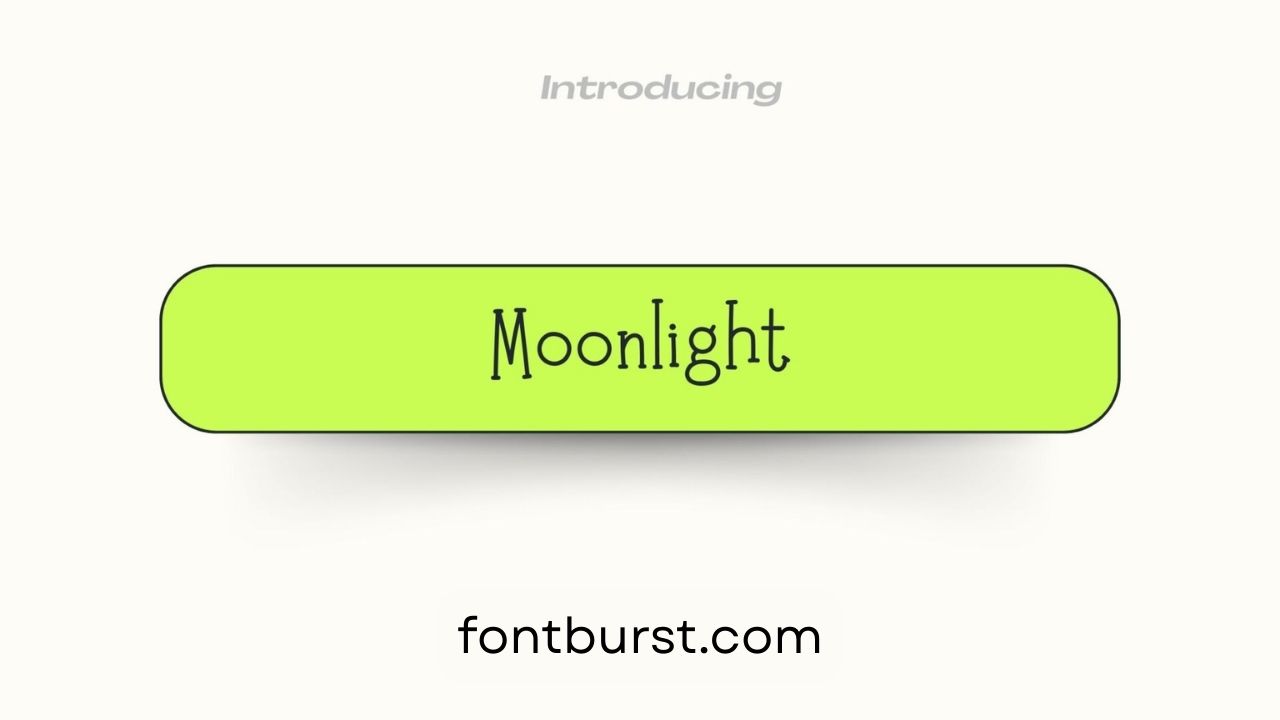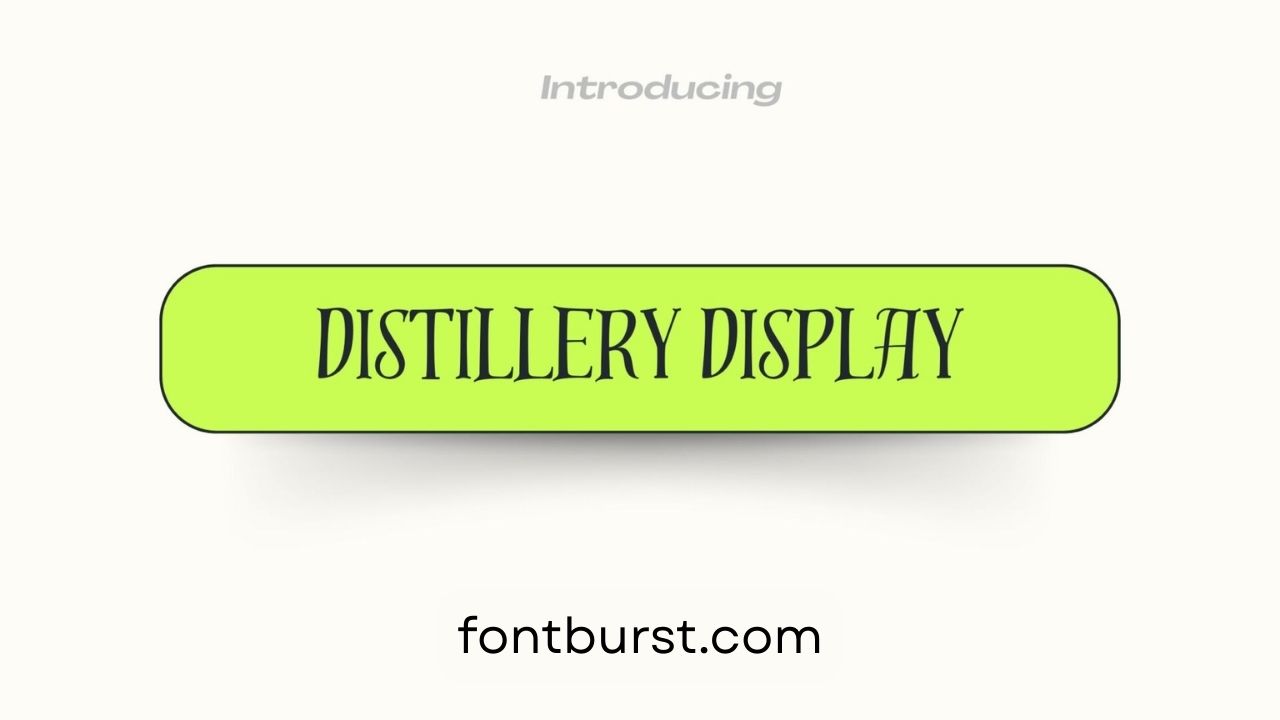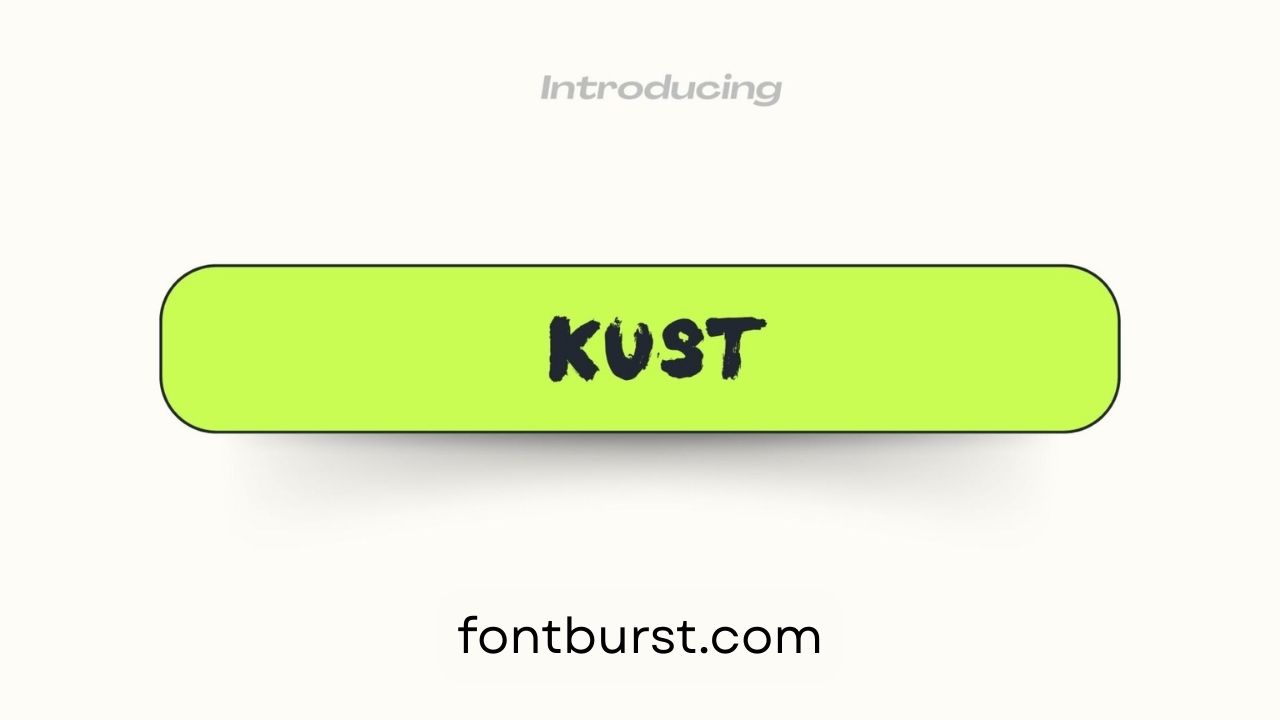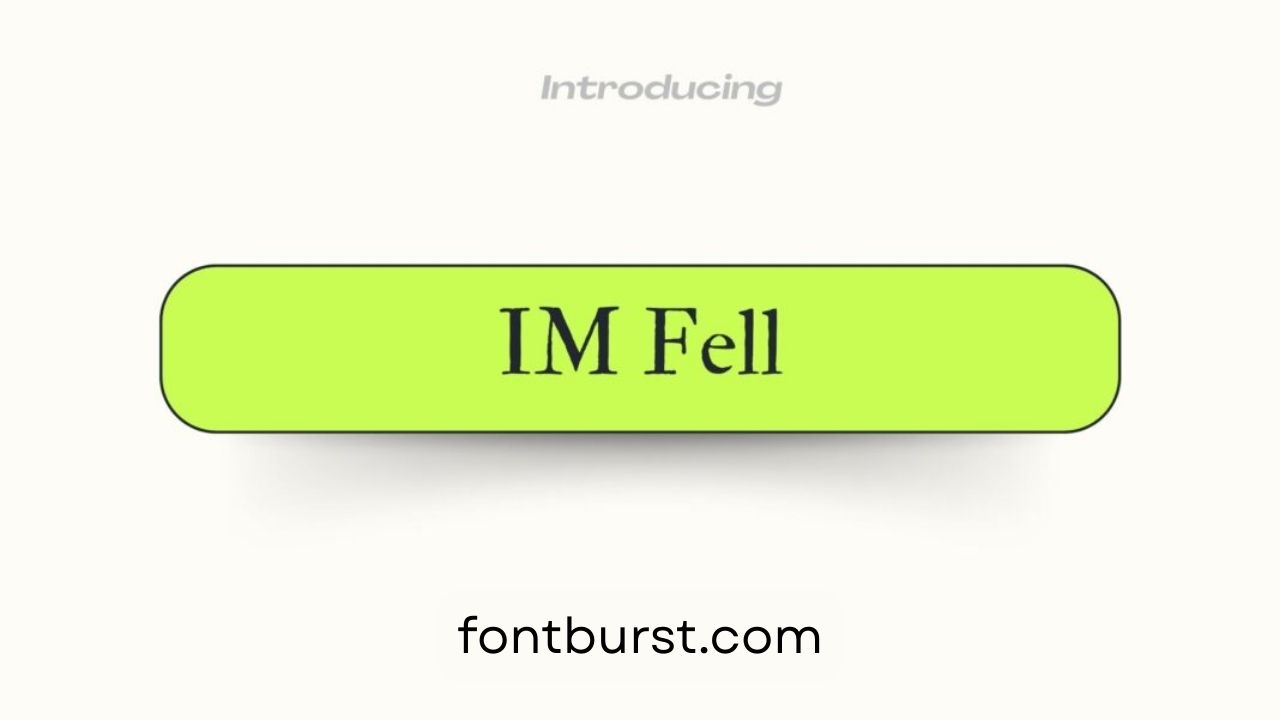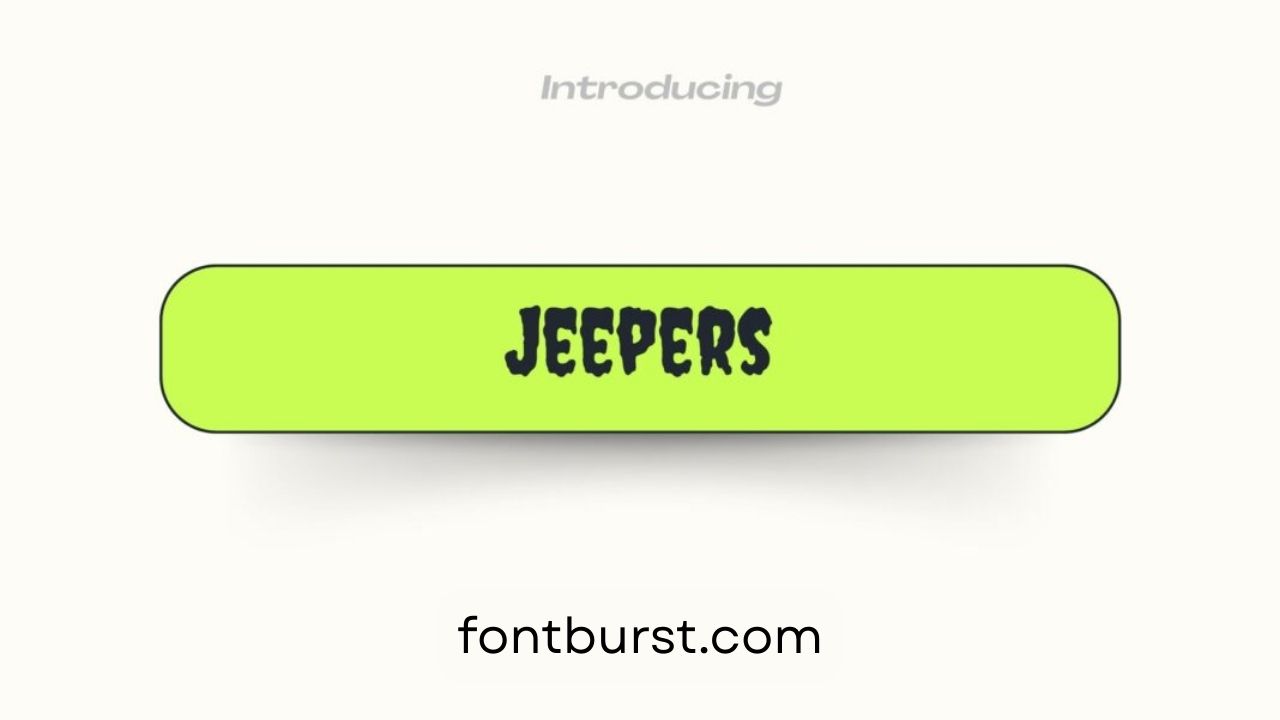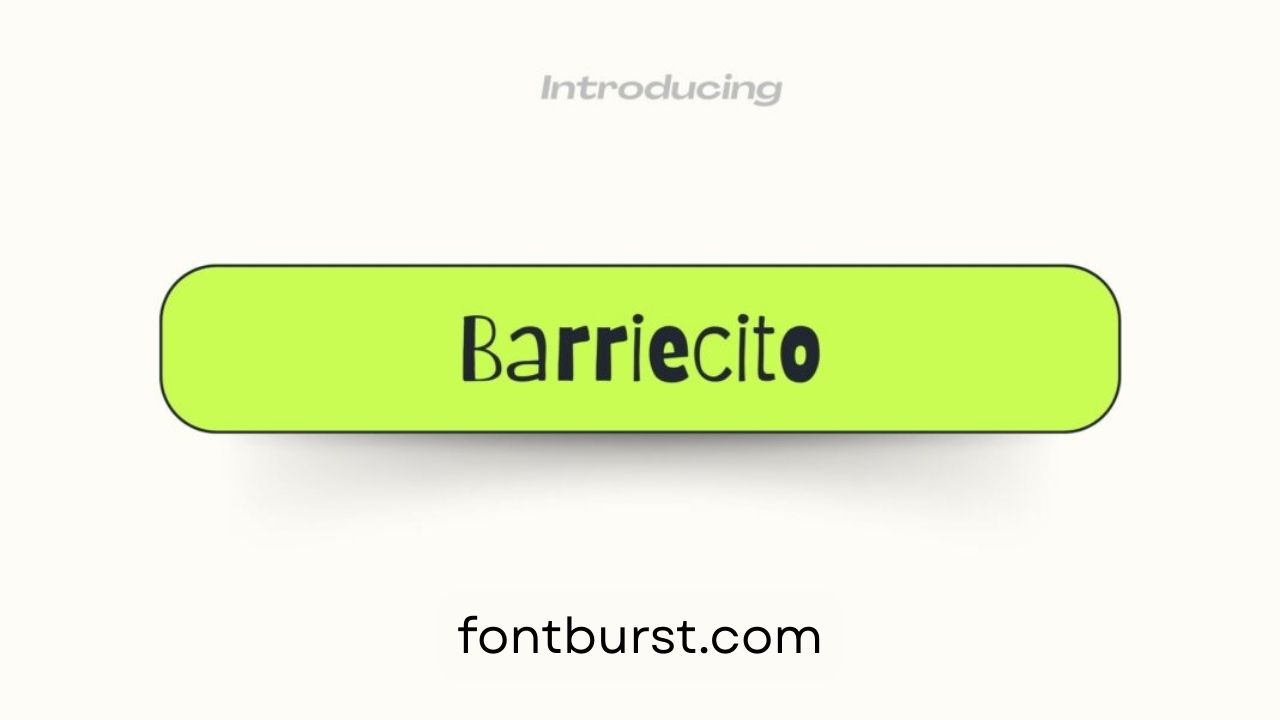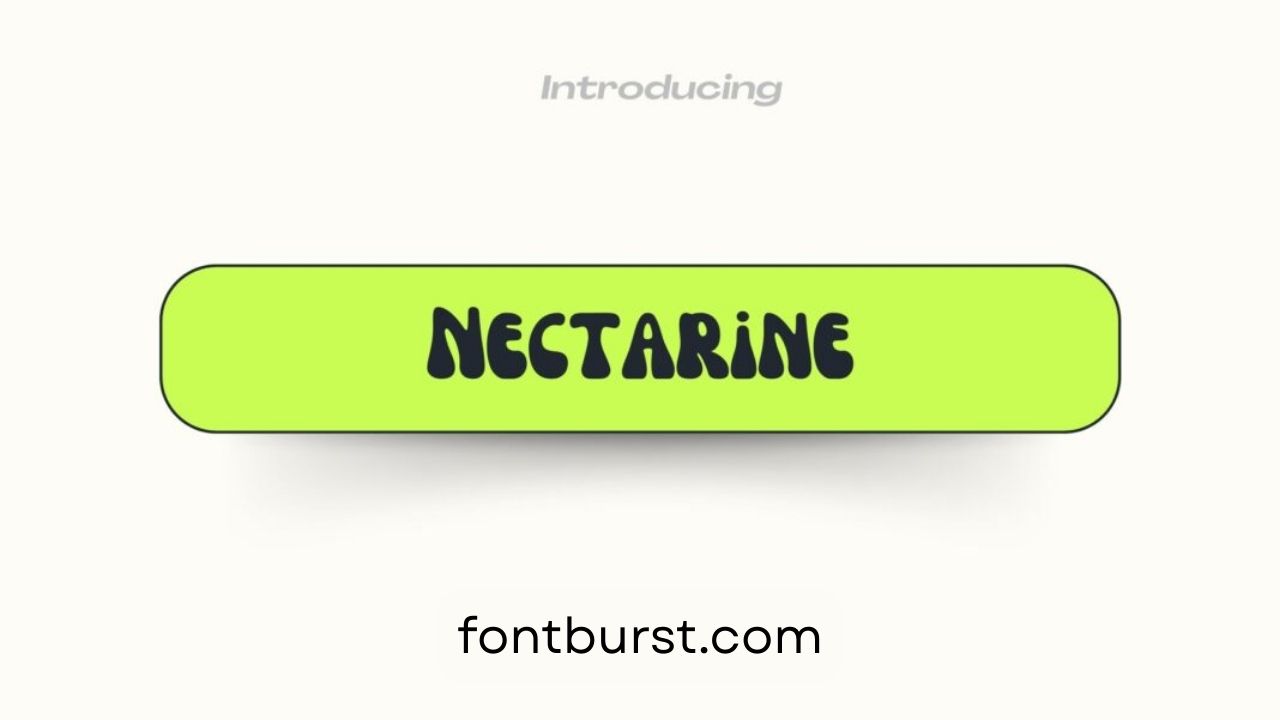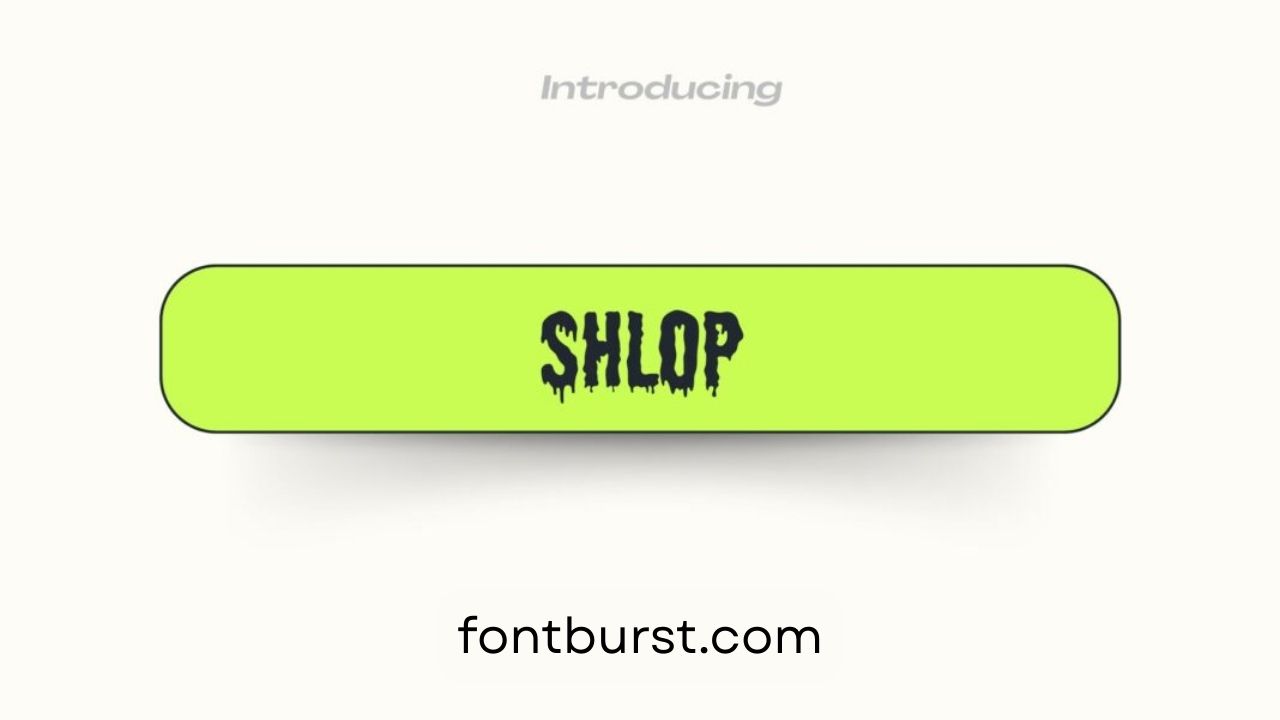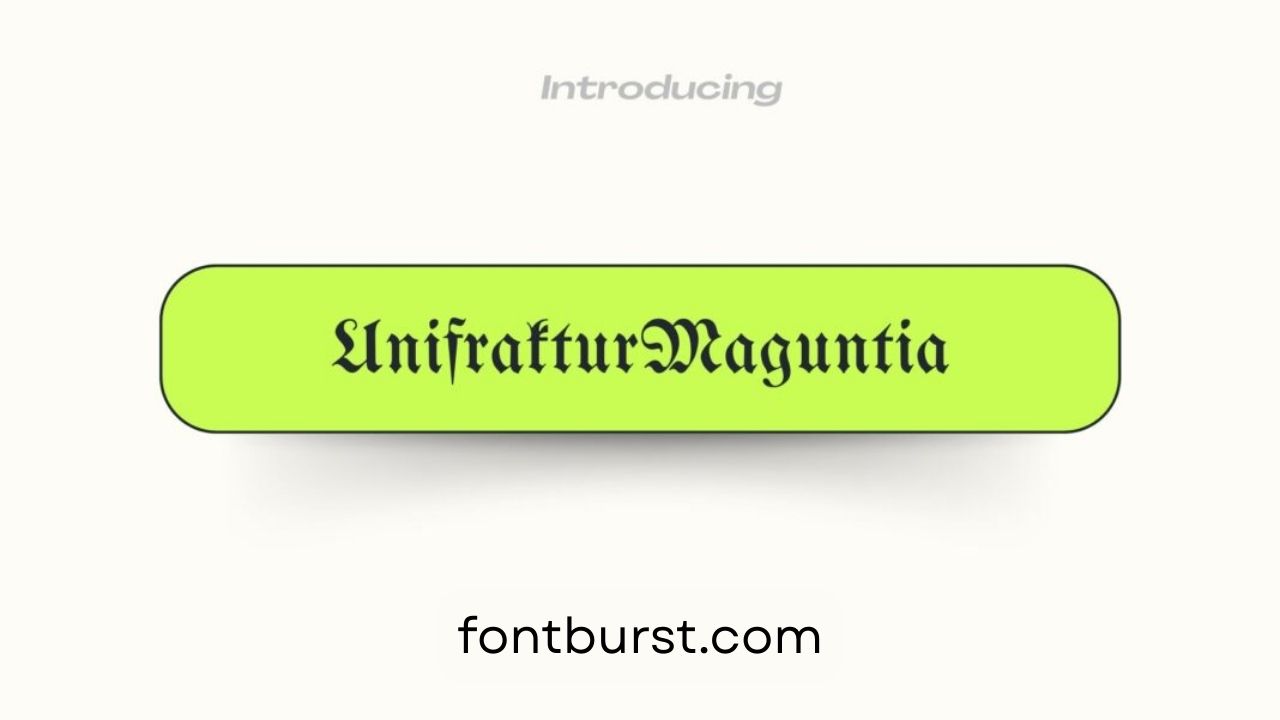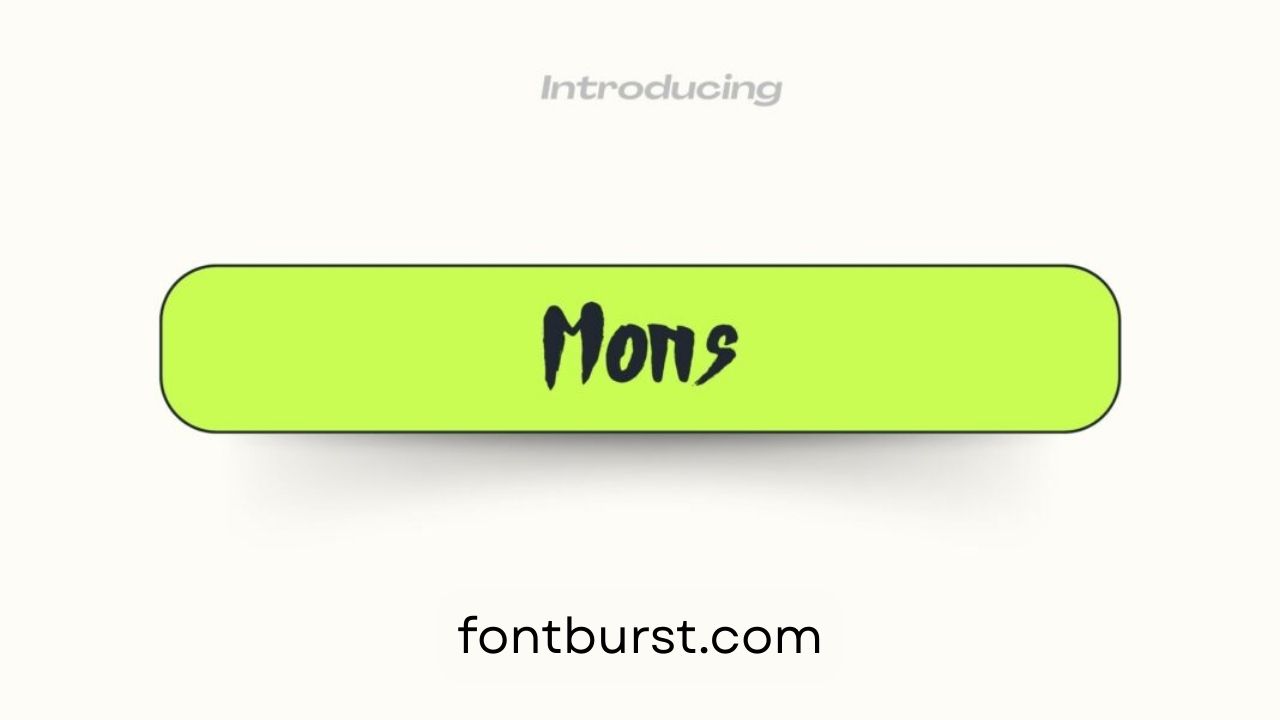
11 Horror Fonts in Canva
A good font choice can help set the mood when you’re making scary designs. Horror fonts can add a creepy and spooky twist if you’re making posters, invitations, or social media posts. If you want to use scary Halloween fonts in your designs, Canva has a lot of them. Here are 11 horror fonts in Canva with scary themes that will work great for any project.
Every one of these fonts has its own style, from creepy to downright scary. Some look like old horror movies, while others are more fun and silly, perfect for a Halloween party. You can use them to make a scary atmosphere that fits with the project’s theme. Any of these fonts will help your design stand out, whether you want it to be bold, scary, or cool.
Top 11 Spooky Horror Fonts in Canva for Chilling Designs
It’s possible to make your designs more interesting by using scary fonts. There is a font collection on Canva that will help you make your design stand out or give it a slightly scary vibe. These are the 11 best horror fonts in Canva, and you can use them to make your Halloween and scary projects better.
Moonlight Font
It’s perfect for moonlit horror designs because this font has a soft, creepy glow to it. For posters about the night or scary invitations, it works well. Its slightly curved lines give any text a mysterious feel.
Distillery Display Font
The Distillery Display Font has a strong, rough look that works well with old-school horror themes. It looks like something from a scary Western’s haunted saloon sign.
Kust Font
Kust Font gives it a rough, hand-drawn look that makes it feel real and unsettling. It works great for horror designs that need a scratchy, home-made feel.
IM Fell Font
This font has an old-fashioned look that makes it look like it would be at home in an old horror movie or book. Its sans serif style makes it feel old-fashioned, which makes it perfect for Gothic horror.
Jeepers Font
The design of Jeepers Font is both fun and scary, which makes it a good choice for Halloween projects. The uneven letters give it a strange and creepy charm.
Barriecito Font
This font has a weird, scary comic book look to it. It’s both funny and scary, which makes it great for less serious, fun designs like Halloween party invitations.
Nectarine Font
Nectarine Font is both classy and scary at the same time. Because the letters are curved, it’s great for designs with a supernatural or mysterious theme that want to look good and scare people.
Shlop Font
Because Shlop Font looks like it’s melting or dripping, it’s great for making scary effects that are slimy and gooey. This font is great for giving posters and titles a fun and creepy touch.
UnifrakturMaguntia Font
You can really feel the mediaeval and Gothic styles in this blackletter font. It works great for scary historical stories or anything else that needs a touch of old-fashioned fear.
Butcherman Font
Butcherman Font is great for slasher-themed projects because it looks like a rough butcher. It looks intense and bloody because the letters’ edges are rough.
Mons Font
Mons Font has harsh, modern lines that give it a scary look. It’s simple but eye-catching, which makes it a good choice for designs that are both simple and scary. Great for titles that need to stand out.